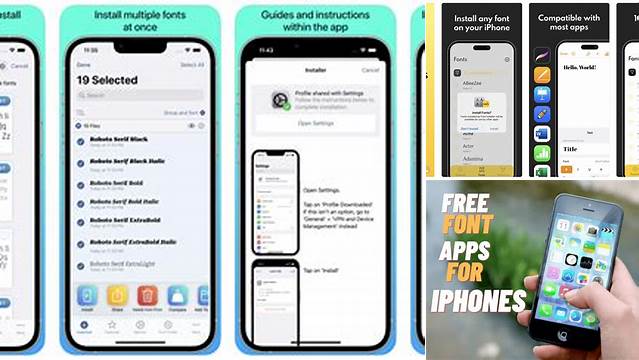
Best Free Font Apps For Your IPhone
Hey guys! Ever feel like your iPhone is looking a little…blah? Like it needs a serious makeover? Well, you're in luck! One of the easiest and most effective ways to spice things up is by changing your font. And guess what? You don't even have to break the bank to do it! There are tons of amazing free font apps out there that can transform your iPhone's look and feel.
This article is your ultimate guide to the best free font apps for iPhone. We're going to dive deep into the world of iOS typography, exploring everything from custom keyboards to full-system font changes (yes, it's possible!). We'll cover the pros and cons of each method, walk you through the installation process, and even give you some tips on choosing the perfect font to match your personal style. So, buckle up and get ready to give your iPhone the fontastic makeover it deserves!
1. Exploring Free Font Apps for iPhone
So, you're ready to jump into the world of free font apps for your iPhone? That's awesome! But before you start downloading every app you see, let's get a lay of the land. There's a huge variety of apps out there, each with its own strengths and weaknesses. Some apps focus on custom keyboards, allowing you to use funky fonts in your messages, social media posts, and notes. Others offer a more comprehensive approach, attempting to change the system-wide font (though this often comes with limitations, as we'll discuss later). When we say exploring free font apps for iPhones, we also have to consider the safety aspects and reliability of these apps. You should always make sure you're downloading apps from the official App Store and reading reviews before you install anything. This helps you avoid malicious software or apps that simply don't work as advertised. Plus, understanding what each free font app offers – and what it doesn't – will save you time and frustration in the long run. It's like going to a buffet: you wanna know what's on offer before you start piling things on your plate, right? So, let's dive in and explore the options!
2. Custom Keyboard Apps for Fonts
Okay, let's talk custom keyboards. These are probably the most popular way to use different fonts on your iPhone, and for good reason! They're relatively easy to set up, super versatile, and give you a ton of creative control. Essentially, these apps replace your default iPhone keyboard with a custom one that includes a selection of stylish fonts. This means you can use these fonts in almost any app that uses the keyboard, including messaging apps (like iMessage, WhatsApp, and Messenger), social media platforms (Instagram, Twitter, Facebook), and even your notes app. When we talk about the benefits of using custom keyboard apps for fonts, the key word here is flexibility. You can switch between fonts on the fly, depending on your mood or the context of your message. Feeling sassy? Throw in a bold, italic font. Want to add a touch of elegance? Try a cursive or script font. The possibilities are endless! But there are a couple of things to keep in mind. First, some free font keyboard apps might include ads or in-app purchases for additional fonts. And second, switching between keyboards can sometimes be a little clunky, especially if you have multiple custom keyboards installed. But overall, custom keyboard apps are a fantastic way to spice up your iPhone's typography without making any permanent changes to your system. It's like having a whole wardrobe of fonts at your fingertips!
3. Font Editing Apps on iPhone
Now, let's shift our focus to font editing apps on iPhone. These apps take things a step further than custom keyboards, allowing you to not only use different fonts but also to edit and customize them. This is where things get really interesting! With these apps, you can create unique text designs for social media posts, stories, flyers, and even logos. Think of it as having a mini-design studio right on your phone. Font editing apps often come packed with a range of tools and features. You can adjust font size, color, spacing, and even add effects like shadows, gradients, and textures. Some apps even allow you to import your own fonts or create new ones from scratch! This level of customization is perfect for anyone who wants to make their text truly stand out. Using a font editing app on your iPhone opens the doors to a lot of creative freedom. This opens up options to make quotes for Instagram, stunning posters, or even marketing materials for your small business. However, it's worth noting that the learning curve can be a little steeper compared to custom keyboard apps. You'll need to spend some time experimenting with the different tools and features to really master the art of font editing. But trust me, the results are totally worth it!
4. System Font Change on iOS (Limitations)
Okay, let's get to the elephant in the room: changing the system font on iOS. This is something that a lot of people want to do, and for good reason. Imagine being able to change every font on your iPhone – from the menus and settings to the app names and notifications. It would be like giving your entire phone a complete visual makeover! However, there's some tricky stuff we need to discuss about system font change on iOS, so let's get right to it. Unfortunately, Apple doesn't officially support system-wide font changes on iOS. This means that there's no built-in setting or option that allows you to swap out the default font for something else. So, does that mean it's impossible? Not necessarily. In the past, there have been workarounds and jailbreaking methods that allowed users to modify the system fonts. But these methods often come with significant risks, including voiding your warranty, making your device unstable, or even bricking it (turning it into a fancy paperweight). And even if you manage to change the system font, there's no guarantee that it will work perfectly across all apps and features. You might encounter compatibility issues, display glitches, or even performance problems. Because of the difficulty of the process of changing the system font on iOS, we strongly advise against it unless you're a super tech-savvy user who's willing to take the risks. It's usually better to stick to custom keyboard apps or font editing apps for a safer and more reliable way to customize your iPhone's typography.
5. Font Apps for Specific Apps (Instagram, etc.)
Let's zoom in on something super practical: font apps for specific apps, like Instagram. You know how important visuals are on platforms like Instagram, where aesthetics are everything. And your font choice plays a huge role in conveying your brand's personality and style. That's where font apps for specific apps come in handy! These apps are designed to help you create eye-catching text for your captions, stories, and bios. They often offer a wider variety of fonts than you'd find in a standard keyboard app, and they might even include pre-designed templates and graphics to make your content pop. One of the great things about using a font app for Instagram (or any other specific app) is that it allows you to tailor your typography to the platform. What works well in a professional email might not be the best choice for an Instagram story, and vice versa. These apps give you the flexibility to choose the perfect font for every situation. For example, a font app specifically designed for Instagram will give you font options that will look great on the platform and help you stand out. Using these apps can help you build a consistent brand aesthetic and make your content more engaging. So, if you're serious about your social media presence, exploring font apps for specific apps is definitely worth your time!
6. Installing Fonts on iPhone
Alright, you've chosen your favorite font app, now what? Let's talk about installing fonts on your iPhone. The process is usually pretty straightforward, but it can vary slightly depending on the type of app you're using. For custom keyboard apps, you'll typically need to go into your iPhone's Settings app, navigate to General > Keyboard > Keyboards, and then tap "Add New Keyboard." From there, you should see your new font app listed as an option. Simply select it, and you're good to go! You might also need to grant the app "Full Access" to allow it to function properly. However, keep in mind that granting full access means the app has access to everything you type, so it's essential to choose a reputable app from a trusted developer. If you're using a font editing app, the installation process might be a little different. These apps usually don't require you to add a new keyboard. Instead, you'll typically create your text design within the app and then copy and paste it into other apps. The most important thing is to follow the instructions provided by the app developer. They'll usually have a step-by-step guide to help you get up and running. And if you ever run into any issues, don't hesitate to check the app's FAQ or contact their support team. Once you've mastered the font installation process, you'll be ready to unleash your creativity and transform your iPhone's typography!
7. Using Fonts in Messaging Apps
Okay, let's get down to the nitty-gritty: using fonts in messaging apps. This is where things get really fun! Imagine sending a text to your friend in a funky, handwritten font or surprising your family with a message in a bold, futuristic typeface. With the right font app, you can add a personal touch to your messages and make them stand out from the crowd. When we talk about using fonts in messaging apps, the most common way to do this is with custom keyboard apps. Once you've installed and enabled your font keyboard, simply switch to it within your messaging app (usually by tapping the globe icon on your keyboard). You'll then see a selection of fonts to choose from, allowing you to style your text in all sorts of creative ways. But there's also another option: font editing apps. With these apps, you can create your message with your desired font and style, and then copy and paste it into your messaging app. This method gives you even more control over the look of your text, as you can adjust things like size, color, and spacing. Using special fonts in messaging apps is a perfect way to express yourself and add a personal touch to your conversations. Just remember to use them sparingly and thoughtfully. A little font variety can be fun, but overwhelming your friends with too many different fonts in one conversation might be a bit much! So, experiment, have fun, and find the perfect font to match your message.
8. Font Styles for Social Media
Social media is a visual world, and your font style is a key part of your online presence. Choosing the right font can help you convey your brand's personality, attract attention, and make your content more engaging. So, let's dive into the world of font styles for social media and explore how to make your posts stand out! The best font style for your social media content will depend on your brand's identity and the platform you're using. For example, a clean, modern font might be perfect for a tech company's Instagram feed, while a playful, handwritten font might be a better fit for a lifestyle blogger's stories. It's essential to consider your audience and the overall aesthetic you're trying to create. Think about what kind of message you want to send and how your font choice can help you convey it. A bold, sans-serif font might be great for making a statement, while a delicate serif font might be better for conveying elegance and sophistication. If you're not sure where to start, experiment with different fonts and see what resonates with you and your audience. And don't be afraid to mix and match fonts to create visual interest. Just remember to keep things consistent and avoid using too many different fonts in one post. With a little creativity and the right font app, you can transform your social media presence and make your content truly shine.
9. Fonts for iPhone Keyboard
Let's zero in on the heart of the matter: fonts for your iPhone keyboard. After all, your keyboard is the primary way you interact with your phone, so it makes sense to want to personalize it! As we've discussed, custom keyboard apps are the most common way to add stylish fonts to your iPhone keyboard. These apps replace your default keyboard with a custom one that includes a selection of different fonts. This means you can use these special fonts in almost any app that uses the keyboard, from messaging apps to social media platforms to your notes app. When choosing fonts for your iPhone keyboard, it's essential to consider both aesthetics and usability. You want a font that looks great, but you also want one that's easy to read and doesn't slow you down. Some fonts might look cool but be difficult to decipher at a glance, especially on a small screen. Another thing to keep in mind is keyboard layout. Some font apps might rearrange the keys or add extra buttons, which can take some getting used to. So, be sure to choose an app that offers a layout that's comfortable and efficient for you. Using a custom font on your keyboard can add a touch of personality to your iPhone and make typing a little more fun. But remember to prioritize readability and usability to ensure a smooth and enjoyable typing experience.
10. Best Font Apps for iPhone Photography
Calling all photo enthusiasts! Let's talk about best font apps for iPhone photography. You've captured that perfect shot, edited it to perfection, and now you want to add some text to make it even more impactful. That's where font apps for photography come in! These apps are designed to help you add stylish text overlays to your photos, creating eye-catching images for social media, websites, or even prints. The best font apps offer a wide variety of fonts to choose from, ranging from classic and elegant to modern and edgy. They also typically include a range of customization options, allowing you to adjust font size, color, spacing, and alignment. Some apps even offer pre-designed templates and graphics to help you create stunning visual content quickly and easily. When choosing a font app for your iPhone photography, it's important to consider the style of your photos and the message you want to convey. A delicate script font might be perfect for adding a quote to a romantic landscape photo, while a bold, sans-serif font might be a better fit for a motivational message on an action shot. The right font can enhance your photos, add context, and help you tell a story. So, if you're serious about your iPhone photography, exploring font apps is a must! They'll help you take your images to the next level and make them truly stand out.
11. Free Fonts for iPhone iMessage
Let's zoom in on a specific use case: free fonts for iPhone iMessage. You know how much we rely on iMessage to stay connected with friends and family. It's the go-to for quick chats, funny memes, and important updates. So, why not spice up your iMessage conversations with some stylish fonts? Using free fonts in iMessage can add a personal touch to your messages and make them more expressive. You can use different fonts to convey different moods, highlight key points, or simply add a bit of visual flair to your texts. As we've discussed, custom keyboard apps are the easiest way to use different fonts in iMessage. Simply install a font app, enable it in your keyboard settings, and switch to it when you're typing a message. You'll then have a selection of fonts to choose from, allowing you to style your texts in all sorts of fun ways. But there's another method for using special fonts in iMessage. You can use a font editing app to create your message with your desired font and style, and then copy and paste it into iMessage. This gives you even more control over the look of your text, as you can adjust things like size, color, and spacing. Using creative fonts in iMessage is a fantastic way to express your personality and make your conversations more engaging. So, go ahead, experiment with different fonts, and add a personal touch to your messages!
12. Changing Font Size on iPhone
While we're talking about fonts, let's not forget about something super important: changing the font size on your iPhone. Sometimes, it's not about the style of the font, but simply about making it easier to read. Whether you have visual impairments or just prefer a larger font size, your iPhone offers several ways to adjust the font size to your liking. The easiest way to change the font size is through the Settings app. Simply go to Settings > Display & Brightness > Text Size, and you'll find a slider that allows you to increase or decrease the font size. This setting will affect the font size in most apps, including Mail, Messages, and Calendar. But that's not all! Your iPhone also offers a feature called Bold Text, which can make the text even easier to read. You can find this setting in Settings > Display & Brightness. Enabling Bold Text will make all the text on your iPhone appear bolder and more prominent. If you need even more control over font sizes, you can explore the Accessibility settings. Go to Settings > Accessibility > Display & Text Size, and you'll find a variety of options, including Larger Text. Enabling Larger Text gives you an even wider range of font sizes to choose from. Customizing the font size on your iPhone is all about making your device more comfortable and accessible to use. So, don't hesitate to experiment with different settings and find what works best for you!
13. Best Free Fonts for iPhone Notes App
Let's talk about a very practical application: best free fonts for your iPhone Notes app. You probably use the Notes app all the time for everything from jotting down quick ideas to writing long drafts. So, why not make your notes look a little more stylish? While the Notes app itself doesn't offer a ton of font customization options, there are still ways to use different fonts to personalize your notes. The easiest way to add special fonts to the Notes app is to use a custom keyboard app or a font editing app. With a custom keyboard app, you can simply switch to your desired font keyboard and type your notes in that font. With a font editing app, you can create your notes in the app and then copy and paste them into the Notes app. When choosing fonts for your iPhone Notes app, it's important to prioritize readability and clarity. You want a font that's easy to read and doesn't distract from the content of your notes. A clean, simple sans-serif font or a classic serif font are usually good choices. Using unique fonts can add a touch of personality to your notes and make them more visually appealing. But remember to keep things consistent and avoid using too many different fonts in one note. With a little font creativity, you can transform your Notes app from a plain notepad into a stylish workspace!
14. Font Generator Apps for iPhone
Ready to get creative? Let's explore font generator apps for iPhone. These apps are like your personal font foundries, allowing you to create unique and eye-catching text designs with ease. They're perfect for social media posts, stories, flyers, invitations, and anything else that needs a little visual oomph. Font generator apps typically offer a variety of features, including different font styles, colors, backgrounds, and special effects. Some apps even allow you to add animations and create moving text designs. With these tools, you can transform your plain text into stunning visual masterpieces in just a few taps. One of the great things about font generator apps is that they often come with pre-designed templates, making it super easy to create professional-looking graphics even if you don't have any design experience. Simply choose a template, customize the text, and you're good to go! Using a font generator app can save you a ton of time and effort compared to designing everything from scratch. If you're looking to add some visual flair to your iPhone creations, font generator apps are definitely worth checking out. They'll help you unleash your creativity and make your text truly stand out.
15. Cool Fonts for iPhone Free Download
Okay, let's get down to business: cool fonts for iPhone free download. You're on the hunt for some fresh, stylish fonts to spice up your iPhone, and you don't want to spend a dime. We get it! There are tons of free fonts out there just waiting to be discovered. The key is knowing where to look. As we've discussed, font apps are your best bet for finding free fonts for your iPhone. Many apps offer a selection of free fonts to get you started, and some even offer daily or weekly free font downloads. Another great resource for free fonts is the internet. There are many websites that offer free font downloads, but it's important to be cautious and only download fonts from reputable sources to avoid malware or other security risks. When downloading free fonts, make sure they're compatible with your iPhone and the apps you want to use them in. Some fonts might not work properly on iOS or might have licensing restrictions that prevent you from using them for commercial purposes. To find cool fonts for iPhone free download, you have to spend some time exploring and experimenting. Don't be afraid to try out different fonts and see what works best for your style and needs. With a little effort, you can build a font library that will help you express your personality and make your iPhone truly unique.
16. Stylish Fonts for iPhone Texting
Let's talk about adding some flair to your conversations: stylish fonts for iPhone texting. Texting is a huge part of our daily communication, so why not make your texts a little more expressive? Using stylish fonts can add a personal touch to your messages and help you convey your mood and personality. As we've discussed, custom keyboard apps are the most convenient way to use different fonts for texting. Simply install a font app, enable it in your keyboard settings, and switch to it when you're typing a message. You'll then have a selection of stylish fonts to choose from, allowing you to jazz up your texts in all sorts of fun ways. When choosing fonts for texting, it's important to consider readability and clarity. You want a font that's easy for your recipient to read, even on a small screen. Overly ornate or decorative fonts might look cool, but they can be difficult to decipher at a glance. Using a stylish font for texting can make your conversations more engaging and fun. But remember to use fonts thoughtfully and avoid overwhelming your recipient with too many different fonts in one message. A little font variety can be great, but consistency is key!
17. How to Change Font on iPhone Without Jailbreak
Let's address a common question: how to change font on iPhone without jailbreak. As we discussed earlier, Apple doesn't officially support system-wide font changes on iOS, and jailbreaking your device can be risky. So, what are your options if you want to change the font on your iPhone without jailbreaking? The good news is, there are several ways to customize your fonts without resorting to drastic measures. Custom keyboard apps, as we've covered extensively, are a fantastic way to add stylish fonts to your iPhone keyboard. This allows you to use different fonts in almost any app that uses the keyboard, including messaging apps, social media platforms, and notes apps. Another option is to use font editing apps. These apps allow you to create custom text designs with a variety of fonts and styles. You can then copy and paste these designs into other apps, such as messaging apps or social media platforms. While these methods don't allow you to change the system font, they offer a safe and reliable way to personalize your iPhone's typography. You can change font on iPhone without jailbreak, but you need to rely on apps available on the appstore to avoid issues.
18. Font Customization Options on iOS
Let's zoom out and talk about the big picture: font customization options on iOS. While Apple doesn't offer the same level of font customization as some other operating systems, there are still several ways to personalize your iPhone's typography. We've already discussed custom keyboard apps and font editing apps, which offer a wide range of font styles and customization options. But there are also some built-in iOS features that allow you to adjust your font settings. As we mentioned earlier, you can change the font size in Settings > Display & Brightness > Text Size. This setting will affect the font size in most apps. You can also enable Bold Text in Settings > Display & Brightness, which will make all the text on your iPhone appear bolder. And if you need even more control over font sizes, you can explore the Accessibility settings in Settings > Accessibility > Display & Text Size. While you can't change the system font without jailbreaking, these font customization options allow you to make your iPhone more comfortable and accessible to use. They also give you some flexibility to express your personal style.
19. Using Font Apps for iPhone Marketing
Let's get practical: using font apps for iPhone marketing. If you're a business owner or marketer, you know how important visuals are for attracting attention and building your brand. Your font choice plays a key role in conveying your brand's personality and message. Font apps can be powerful tools for creating marketing materials that stand out. With font apps, you can create eye-catching graphics for social media posts, stories, ads, flyers, and more. You can also use them to design logos, watermarks, and other branding elements. When choosing fonts for your marketing materials, it's important to consider your target audience and the overall aesthetic you're trying to create. Your font should be legible and professional, but it should also reflect your brand's personality. Font apps can help you experiment with different font styles and find the perfect fit for your brand. Font apps can help you create marketing materials that look polished and professional. By choosing the right fonts, you can enhance your brand's image and attract more customers.
20. Different Font Styles on iPhone
Let's dive into the world of different font styles on iPhone. You might think that iPhones are limited when it comes to fonts, but that's definitely not the case! While you can't change the system font without jailbreaking, there are tons of ways to explore different font styles using apps. Custom keyboard apps, as we've discussed, offer a wide variety of font styles to choose from. These apps often include everything from classic serif and sans-serif fonts to playful handwritten and decorative fonts. Font editing apps also provide access to a vast library of font styles. These apps often allow you to customize your fonts even further by adjusting size, color, spacing, and other settings. To truly have different font styles on your iPhone, you may need to try different font apps and see which ones best align with your style.
21. Font Design Apps for iOS
Want to take your font game to the next level? Let's explore font design apps for iOS. These apps are for those who want to go beyond simply using existing fonts and actually create their own fonts from scratch. They offer a range of tools and features that allow you to design every aspect of a font, from the shape of the letters to the spacing between them. Font design apps can be a bit more complex than other font apps, but the creative possibilities are endless. Imagine being able to create a font that's completely unique to you and use it in all your projects! Font design apps typically include features such as drawing tools, glyph editors, and kerning controls. These features allow you to fine-tune every detail of your font and create a truly professional-looking result. If you're passionate about typography and want to unleash your inner font designer, font design apps for iOS are definitely worth exploring.
22. Free Fonts for iPhone Word Documents
Let's get practical again: free fonts for iPhone Word documents. If you use Microsoft Word on your iPhone, you might want to add some stylish fonts to your documents. While Word for iOS doesn't offer the same font selection as the desktop version, there are still ways to use different fonts in your documents. The easiest way to add custom fonts to Word is to use a font editing app. You can create your text in the app with your desired font and style, and then copy and paste it into your Word document. However, keep in mind that the recipient of your document will also need to have the same font installed on their device to see it correctly. If they don't have the font, Word will substitute it with a default font. There is not a great deal of options when trying to get free fonts for iPhone Word documents but still something you can work with. The best way to ensure your documents look consistent across devices is to stick to common fonts that are widely available, such as Arial, Times New Roman, or Calibri.
23. Font App Compatibility with iPhone
Let's talk about something crucial: font app compatibility with iPhone. Not all font apps are created equal, and some might not work as smoothly as others on your specific iPhone model or iOS version. It's essential to choose font apps that are fully compatible with your device to avoid any issues. One of the best ways to ensure compatibility is to check the app's description on the App Store. The app developer will usually list the supported iPhone models and iOS versions. It's also a good idea to read user reviews to see if other people have experienced any compatibility problems. If an app has a lot of negative reviews about compatibility, it's probably best to avoid it. The compatibility of a font app on your iPhone is very important and is something you will want to look out for. Another factor to consider is app updates. App developers often release updates to fix bugs and improve compatibility. So, make sure you're using the latest version of your font app to ensure the best possible performance. By checking compatibility before you download a font app, you can save yourself a lot of frustration and ensure a smooth font customization experience.
24. Third-Party Font Apps for iPhone
Let's zoom in on the world of third-party font apps for iPhone. These are the apps that are developed by companies or individuals other than Apple. They offer a wide range of font customization options, from custom keyboards to font editing tools. Third-party font apps are the key to unlocking a world of stylish fonts on your iPhone. They allow you to express your personality and make your device truly unique. When choosing third-party font apps, it's important to consider security and privacy. As we discussed earlier, some font apps require full access to your keyboard, which means they can potentially see everything you type. So, it's crucial to choose apps from reputable developers that you trust. Third-party app can be a huge bonus when looking for different fonts on your iPhone, but you should still be careful when using these apps. Reading reviews and doing your research before downloading an app is always a good idea. By choosing third-party font apps wisely, you can enhance your iPhone's typography without compromising your security or privacy.
25. iPhone Font Management Tips
Okay, you've downloaded a bunch of font apps, now what? Let's talk about iPhone font management tips. Having a lot of font apps can be great, but it can also get a little overwhelming if you're not organized. Here are some tips to help you manage your fonts effectively: * Organize your font apps: Create a folder on your home screen specifically for your font apps. This will keep them separate from your other apps and make them easier to find. * Regularly review your font apps: Take some time every few weeks to go through your font apps and delete any that you're not using. This will free up storage space on your iPhone and declutter your home screen. * Keep your font apps updated: As we mentioned earlier, app updates often include bug fixes and compatibility improvements. So, make sure you're using the latest versions of your font apps. * Back up your fonts: If you've created any custom fonts using font design apps, make sure you back them up regularly. This will prevent you from losing your creations if something happens to your iPhone. It is important to apply a good iPhone font management plan so that you are not overwhelmed. By following these font management tips, you can keep your iPhone organized and ensure a smooth font customization experience.
26. Font App Security and Privacy on iPhone
Let's delve into a critical topic: font app security and privacy on iPhone. As we've mentioned several times, some font apps, especially custom keyboard apps, require full access to your keyboard. This means they can potentially see everything you type, including passwords, credit card numbers, and other sensitive information. It's crucial to be aware of the security and privacy implications before you grant full access to a font app. The best way to protect your privacy is to choose font apps from reputable developers that you trust. Read the app's privacy policy carefully to understand how they collect and use your data. If an app's privacy policy seems vague or concerning, it's best to avoid it. Being wary about font app security and privacy is very important so be sure to take the best course of action for you. You should also limit the number of font apps that you grant full access to. The more apps you have with full access, the greater the risk of a security breach. By being mindful of security and privacy, you can enjoy the benefits of font customization without putting your personal information at risk.
27. Future of Font Customization on iOS
Let's gaze into our crystal ball and talk about the future of font customization on iOS. What can we expect in the years to come? While it's impossible to say for sure, there are some trends and possibilities that are worth considering. One possibility is that Apple might eventually offer more built-in font customization options. Users have been requesting system-wide font changes for years, and Apple might eventually listen to these requests. However, Apple is also known for its focus on security and stability, so any new font customization features would likely be implemented in a way that doesn't compromise these priorities. Another possibility is that third-party font apps will continue to evolve and offer more sophisticated features. We might see apps that offer even more control over font design, or apps that integrate more seamlessly with other apps and services. Font customization is very popular for the iPhone and the future of font customization on iOS looks to be a bright one. The future of fonts is always uncertain, but one thing is clear: people love to personalize their devices, and fonts are a key part of that personalization. So, we can expect font customization on iOS to continue to be a popular and evolving area.
28. Best Font Apps for iPhone for Visually Impaired
Let's focus on an important aspect: best font apps for iPhone for the visually impaired. If you have visual impairments, choosing the right font can make a huge difference in your ability to use your iPhone comfortably and effectively. The best font apps for the visually impaired offer features such as large font sizes, bold text options, and high-contrast color schemes. These features can make text easier to read and reduce eye strain. Some font apps also offer customizable font styles, allowing you to choose a font that's specifically designed for readability. As mentioned earlier, iOS also has built-in accessibility features that can help. You can adjust the font size in Settings > Display & Brightness > Text Size, and you can enable Bold Text in Settings > Display & Brightness. You can also explore the Accessibility settings in Settings > Accessibility > Display & Text Size for even more options. Providing better font apps for people is an important goal and the best font apps for iPhone for visually impaired can greatly improve peoples lives. By choosing the right fonts and utilizing accessibility features, you can make your iPhone more accessible and enjoyable to use, regardless of your visual abilities.
29. How to Find Safe Font Apps for iPhone
Let's revisit a crucial topic: how to find safe font apps for iPhone. As we've emphasized throughout this article, security and privacy are paramount when choosing font apps, especially custom keyboard apps. So, how can you ensure that you're downloading safe apps? Here are some tips: * Download apps from the App Store: The App Store has a rigorous review process, which helps to filter out malicious apps. While it's not foolproof, downloading apps from the App Store is generally safer than downloading them from third-party sources. * Check the developer's reputation: Before downloading an app, research the developer. Are they a well-known and reputable company? Do they have a history of creating secure apps? * Read user reviews: User reviews can provide valuable insights into an app's security and privacy practices. Pay attention to reviews that mention security concerns or privacy issues. * Review the app's permissions: Before granting an app full access to your keyboard, carefully review the permissions it's requesting. Does the app really need access to everything you type? * Read the privacy policy: The app's privacy policy should clearly explain how they collect and use your data. If the privacy policy is vague or concerning, it's best to avoid the app. Finding a safe font app for your iPhone is more important than any feature it may have. By following these tips for finding safe font apps, you can protect your privacy and security while enjoying the benefits of font customization.
30. Troubleshooting Font App Issues on iPhone
Let's wrap things up by addressing a common concern: troubleshooting font app issues on iPhone. Sometimes, things don't go as planned, and you might encounter problems with your font apps. Here are some common issues and how to fix them: * Font app not working: If your font app isn't working, try restarting your iPhone. This can often resolve minor glitches. If that doesn't work, make sure the app is enabled in Settings > General > Keyboard > Keyboards. * Keyboard not switching: If you're having trouble switching between keyboards, try tapping the globe icon on your keyboard multiple times. You can also try removing and re-adding the font keyboard in Settings > General > Keyboard > Keyboards. * Fonts not displaying correctly: If your fonts are not displaying correctly in certain apps, it could be a compatibility issue. Try using a different font or a different font app. You may also want to reach out to customer service to see what issues exist with your particular font app that you have on your iPhone. * App crashing: If your font app is crashing, make sure you're using the latest version of the app. If the problem persists, try deleting and reinstalling the app. By following these troubleshooting tips, you can resolve common font app issues and get back to customizing your iPhone's typography in no time!